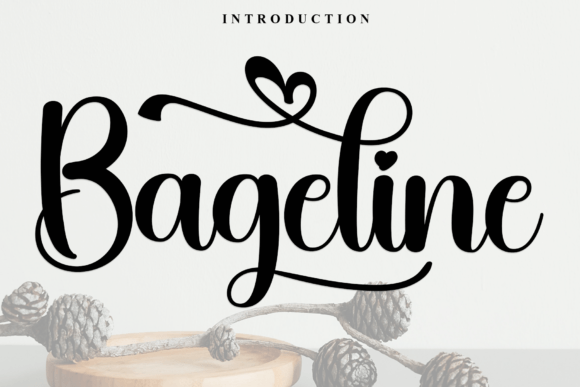
Introducing Bageline Font: A Delicate and Elegant Handwritten Font
In the world of typography, a font can make or break a design. A well-chosen font can elevate a project from ordinary to extraordinary, while a poorly chosen one can have the opposite effect. If you’re looking for a font that can add a touch of elegance and sophistication to your designs, look no further than Bageline Font. In this article, we’ll take a closer look at Bageline, a delicate, elegant, and flowing handwritten font that’s perfect for a wide range of design projects.
What Makes Bageline Font Special?
Bageline Font is a beautiful, handwritten font that’s characterized by its delicate and elegant lines. The font has a flowing, cursive feel that’s perfect for designs that require a touch of sophistication and refinement. One of the standout features of Bageline is its well-balanced characters, which make it easy to read and use in a variety of contexts.
Whether you’re working on a branding project, a website design, or a print project, Bageline Font is a versatile choice that can help you achieve your design goals. The font’s elegant lines and flowing curves make it perfect for use in:
• Logos and branding materials
• Website headers and titles
• Print materials, such as brochures and flyers
• Social media graphics and posts
• And more!
PUA Coded for Easy Access to Glyphs and Ligatures
One of the things that sets Bageline Font apart from other fonts is its PUA (Private Use Area) coding. PUA coding allows designers to access a wide range of glyphs and ligatures, which can add an extra layer of creativity and sophistication to their designs.
• Swashes and flourishes
• Alternate characters and ligatures
• Ornate borders and frames
• And more!
The PUA coding also makes it easy to customize the font to suit your design needs. Whether you want to create a bold and eye-catching headline or a delicate and elegant body text, Bageline Font gives you the flexibility to do so.
Bringing Your Designs to Life with Bageline Font
So, how can you use Bageline Font to bring your designs to life? Here are a few ideas to get you started:
• Pair Bageline Font with a bold and modern sans-serif font for a striking contrast.
• Use Bageline Font as a headline font, and then use a more straightforward font for the body text.
• Add some creative flair to your designs by incorporating the font’s glyphs and ligatures.
• Experiment with different colors and textures to add depth and interest to your designs.
The possibilities are endless, and the versatility of Bageline Font means you can use it in a wide range of design projects. Whether you’re a seasoned designer or just starting out, Bageline Font is a great choice for anyone looking to add a touch of elegance and sophistication to their work.
Technical Details of Bageline Font
Here are some technical details about Bageline Font:
• Font family: Bageline
• Font style: Handwritten, cursive
• Characters: Well-balanced and elegant
• PUA coding: Yes, for easy access to glyphs and ligatures
In conclusion, Bageline Font is a beautiful and elegant handwritten font that’s perfect for designers looking to add a touch of sophistication to their work. With its delicate lines, flowing curves, and PUA coding, Bageline Font is a versatile choice that can be used in a wide range of design projects.
Whether you’re working on a branding project, a website design, or a print project, Bageline Font is a great choice for anyone looking to create stunning and effective designs. So why not give it a try and see how it can help bring your designs to life?